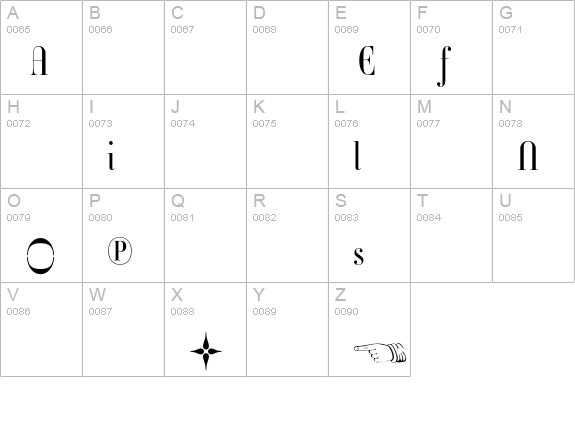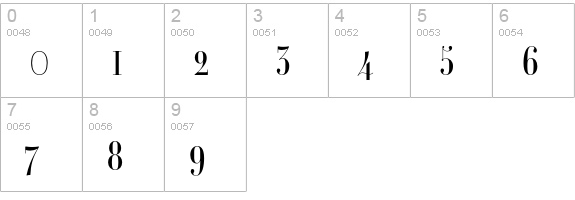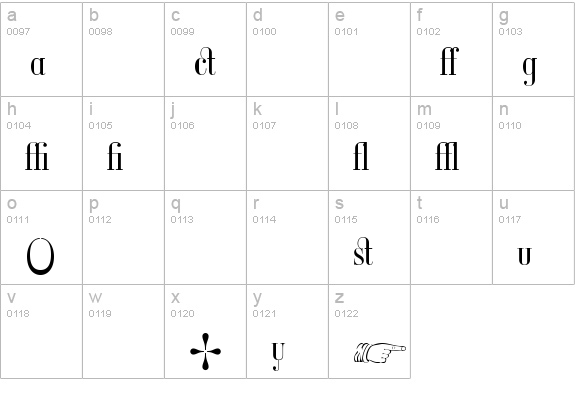
Ambroise Firmin Alternates Light is a refined, elegant variant in the Ambroise typeface family \xE2\x80\x94 well suited to elegant body text, refined sub-headings, and luxury branding.
Ambroise Firmin Alternates Light is a delicate and elegant typeface that exudes sophistication and modernity. With its clean lines and subtle curves, this font is perfect for creating a sleek and refined look in any design project. The light weight of the font adds a touch of airiness and grace, making it ideal for use in branding, editorial design, and more. One of the standout features of Ambroise Firmin Alternates Light is its versatility. Whether you're designing a website, crafting a logo, or working on a print project, this font is sure to elevate your work with its timeless style. Best of all, Ambroise Firmin Alternates Light is available for free download at FontsMarket.com. This means that you can easily access and use this beautiful typeface in your projects without any cost. Don't miss out on the opportunity to add Ambroise Firmin Alternates Light to your font collection and take your designs to the next level.